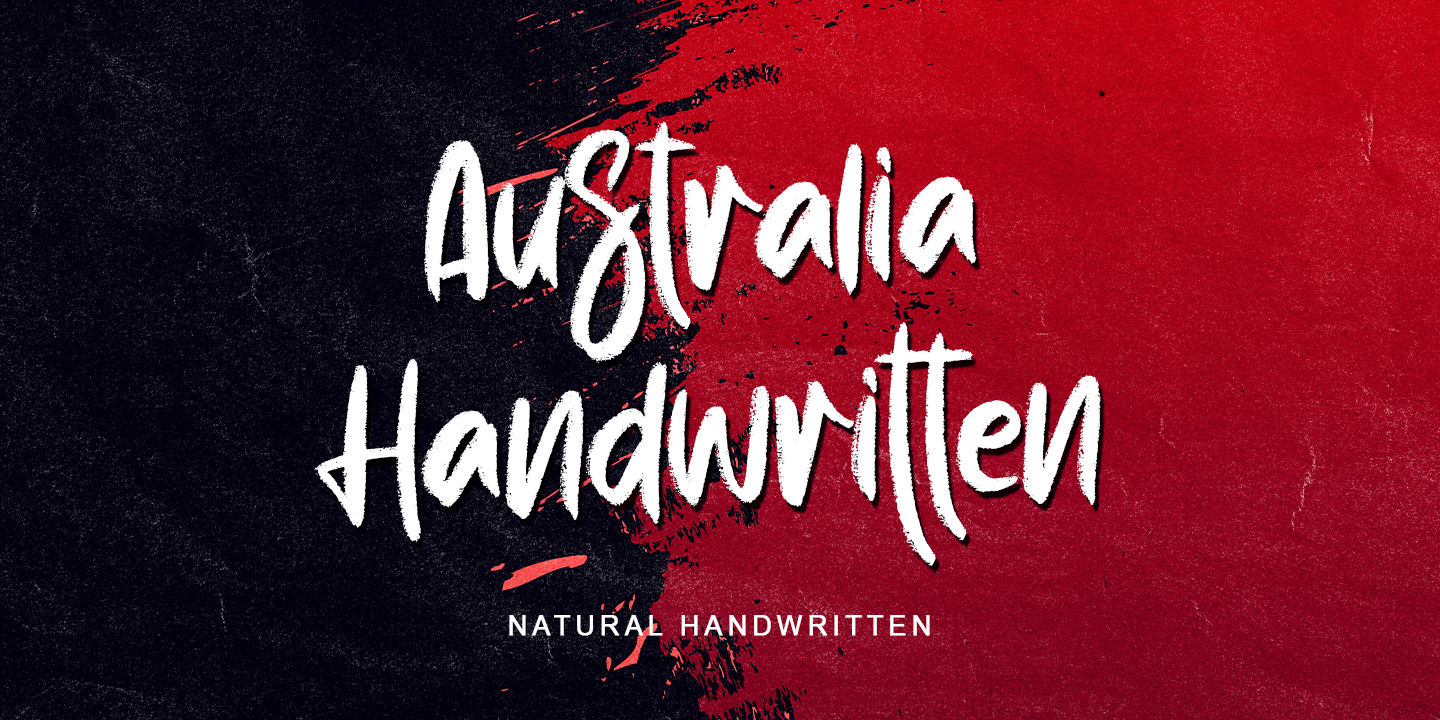
Bring laid-back Aussie charm to your designs with Australia Handwritten Font Free Download – a casual, free-flowing script that captures the effortless cool of Australian beach culture. This relaxed yet stylish typeface features natural variations and organic connections, perfect for projects needing authentic handwritten character with coastal vibes.
Why Australia Handwritten Font Stands Out
Australia Handwritten Font Free Download delivers:
Authentic laid-back handwriting style
Natural stroke variations and ink effects
Perfect balance of casual and professional
Multiple alternates for realistic flow
Australia Handwritten Font Free Download Technical Features:
Complete uppercase and lowercase characters
Contextual alternates for natural variation
True Blue Applications:
Surf/skate brand graphics
Beachside café menus
Travel and tourism promotions
Handcrafted product labels
Social media quote graphics
Design Tip: Tilt text slightly (2-5 degrees) and vary baseline for maximum authentic handwritten effect!